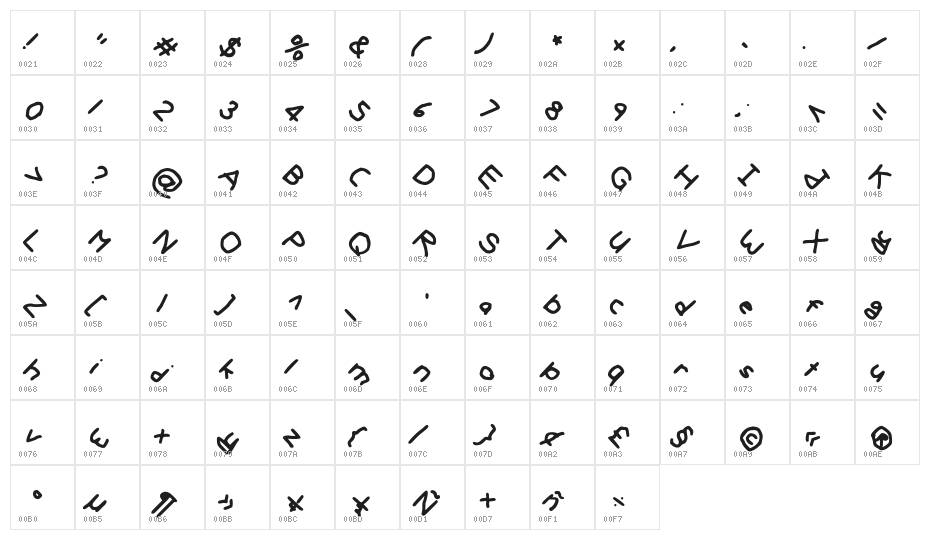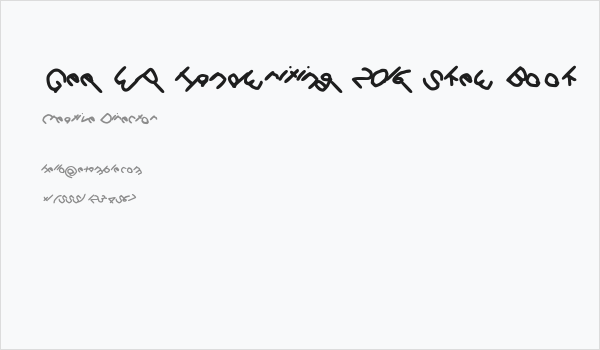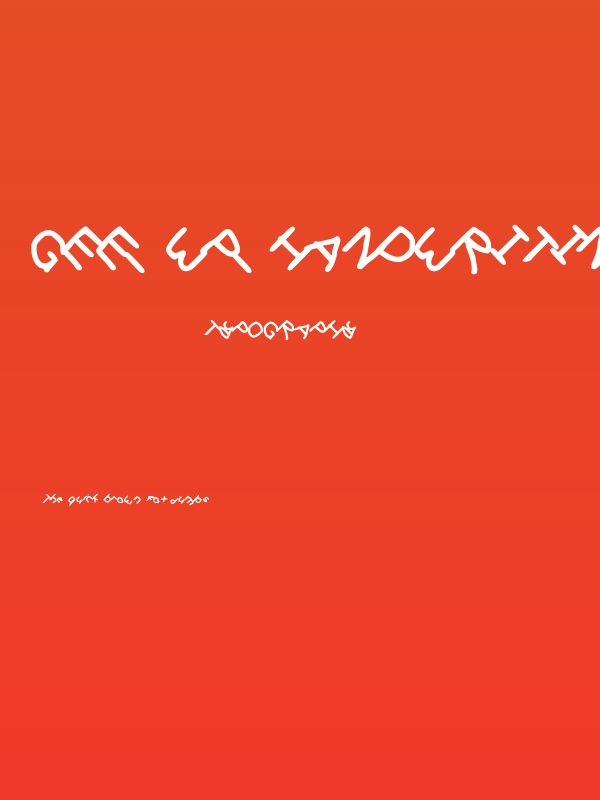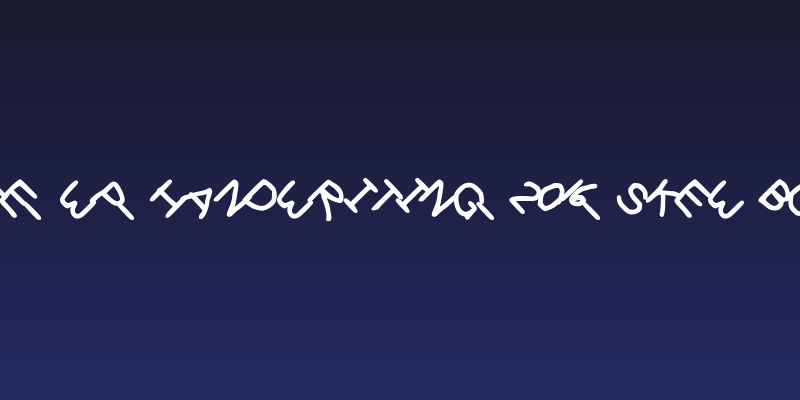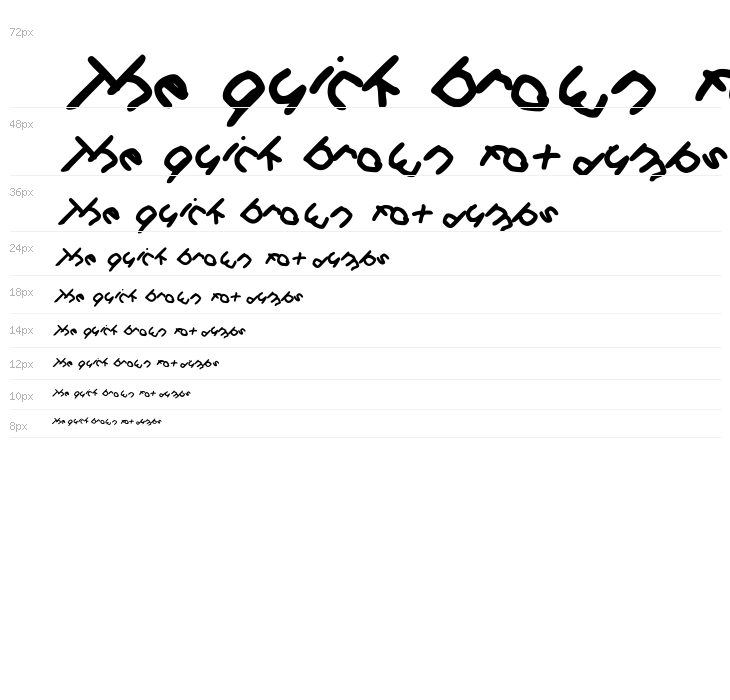
Gee_WP_Handwriting_2016_Skew Book Font
Gee_WP_Handwriting_2016_Skew Book Description
This font exhibits a playful and casual handwritten style, characterized by its skewed and irregular letterforms. The strokes are bold and fluid, giving it a dynamic and energetic appearance. The letters are connected in a way that mimics natural handwriting, with a slight slant that adds to its informal charm. The font maintains a consistent thickness throughout, contributing to its bold presence. It includes a full set of uppercase and lowercase letters, numbers, and a selection of special characters, making it versatile for various uses. The overall look is informal and approachable, suitable for projects that require a personal touch.
| Use Case | Logos, Headlines, Informal Text |
| Proposed Projects | Ideal for greeting cards, personal notes, informal invitations, and creative projects that require a personal touch. |